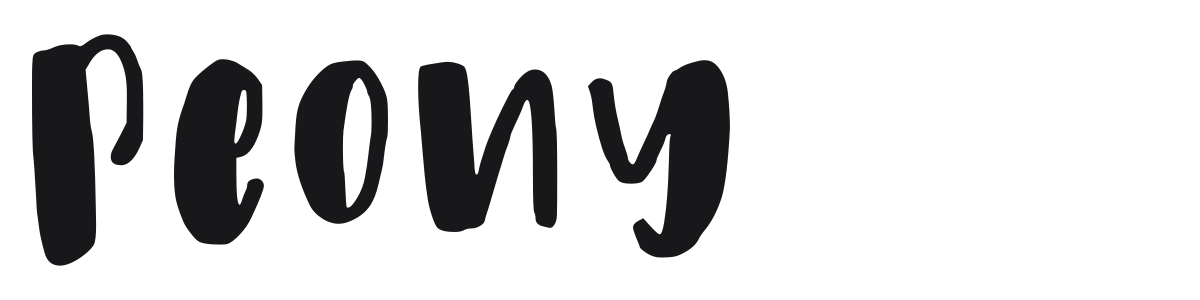
Peony
Peony is a bold brush script by Sarah Rudkin with thick, expressive strokes that feel loose and confident, like lettering done in a single pass with a loaded brush. The organic shapes and playful rhythm give it real warmth and energy, making it a strong choice for headlines, packaging, and branding that needs to feel personal and hand-done without looking sloppy.